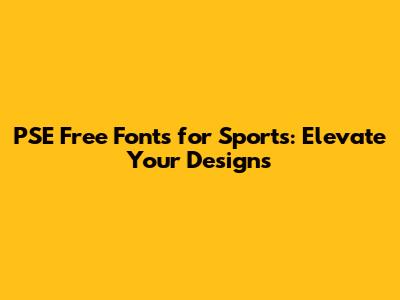
Hey sports fans and design enthusiasts, guys! Ever found yourself staring at a blank canvas, wanting to create something awesome for your favorite team or sports event, but feeling like your typography just isn't hitting a home run? You're not alone! Choosing the right font can be the difference between a design that gets benched and one that scores big. Today, we're diving deep into the fantastic world of PSE free fonts that are tailor-made for all things sports. We're talking about fonts that bring energy, power, and a sense of athletic prowess to your projects, all without costing you a dime. So, buckle up, because we're about to explore how these free sports fonts can revolutionize your graphics, from posters and social media banners to team merchandise and website designs. Get ready to up your design game and make your sports-related content stand out from the crowd with some seriously killer typography. Let's get this game started!
Discovering the Power of Free Sports Fonts
Alright, let's get real for a second. When we talk about free sports fonts, we're not just talking about any old typeface. We're talking about fonts that have that oomph, that grit, that speed associated with athletic competition. Think bold strokes, sharp angles, and designs that convey movement and excitement. The beauty of PSE free fonts in this niche is their ability to capture that dynamic spirit without the hefty price tag. Many designers, especially those working on a budget or for amateur leagues, struggle to find high-quality fonts that fit the sports aesthetic. This is where the magic of free resources comes in. These sports fonts are often designed with specific sports in mind – think racing fonts with sleek lines, football fonts with a rugged feel, or basketball fonts with a bouncy, energetic vibe. The key is to understand what each sport embodies and find a font that visually communicates that essence. Free sports fonts can be incredibly versatile, too. They can be used for branding a local team, creating eye-catching flyers for a tournament, designing motivational quotes for athletes, or even just adding a cool touch to your personal sports blog. The goal is to find fonts that are not only aesthetically pleasing but also highly legible, especially when used in headlines or on merchandise where readability is crucial. We'll be exploring a variety of styles, from aggressive and powerful to sleek and modern, ensuring there's something for every sport and every designer's needs. So, keep your eyes peeled as we unearth some hidden gems that will make your sports designs truly unforgettable. It's all about finding that perfect typographic match to your athletic vision, and thankfully, the world of free sports fonts offers a winning lineup.
Typography for Every Sport: Finding Your Perfect Match
Now, let's get down to the nitty-gritty, guys. Different sports have distinct personalities, and your typography should reflect that! When you're on the hunt for free sports fonts, think about the sport itself. For high-octane action like racing or motorsports, you'll want fonts that scream speed and precision. Think sleek, italicized fonts with sharp edges, reminiscent of aerodynamic designs. Fonts like 'Race Track' or 'Speed Demon' (hypothetically speaking, of course, we'll get to real examples later!) can evoke that thrilling sense of velocity. Imagine these on a race car decal or a poster for a drag racing event – pure adrenaline! Then you have sports like football, rugby, or American football. These are all about power, impact, and a bit of ruggedness. Here, you'll lean towards bold, blocky, or stencil-style fonts. They give that sense of strength and determination, perfect for team logos or merchandise. Think of fonts that look like they could withstand a tackle! For sports like basketball or volleyball, where agility and quick movements are key, you might opt for fonts that feel more dynamic and energetic. Think slightly condensed, perhaps with a subtle slant, or fonts that have a modern, clean aesthetic but still pack a punch. They need to feel fast and responsive, mirroring the players on the court. What about individual sports like tennis, golf, or even gymnastics? These often require a touch of elegance and precision. You might explore cleaner, sans-serif fonts with good kerning, or perhaps even some sophisticated serif fonts if the branding calls for it. The key is to maintain a sense of professionalism and refinement, highlighting the skill and dedication involved. And let's not forget about esports! This is a whole new arena. Esports fonts often blend futuristic elements with a digital, tech-savvy vibe. Think sharp, geometric designs, often with glowing effects or intricate details. They need to look cutting-edge and competitive. The beauty of exploring PSE free fonts is that you can experiment with so many different styles. Don't be afraid to try a stencil font for a boxing event poster or a script font for a more artistic or performance-based sport like figure skating (used sparingly, of course!). The goal is to find a font that visually tells the story of the sport and resonates with its audience. Remember, legibility is still king, especially for team names and scores. So, while you want something stylish, make sure it's readable from a distance or at a glance. We'll be digging into specific examples of free sports fonts that nail these different vibes in the sections to come, so stay tuned!